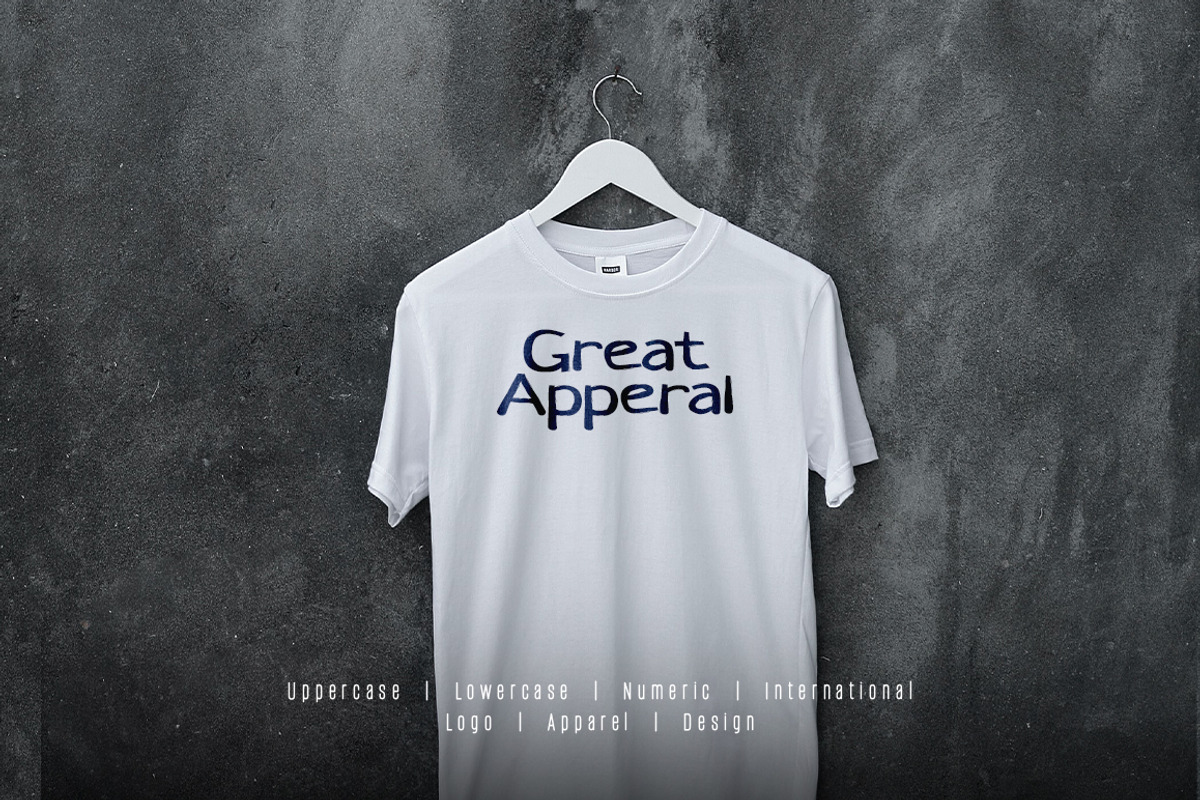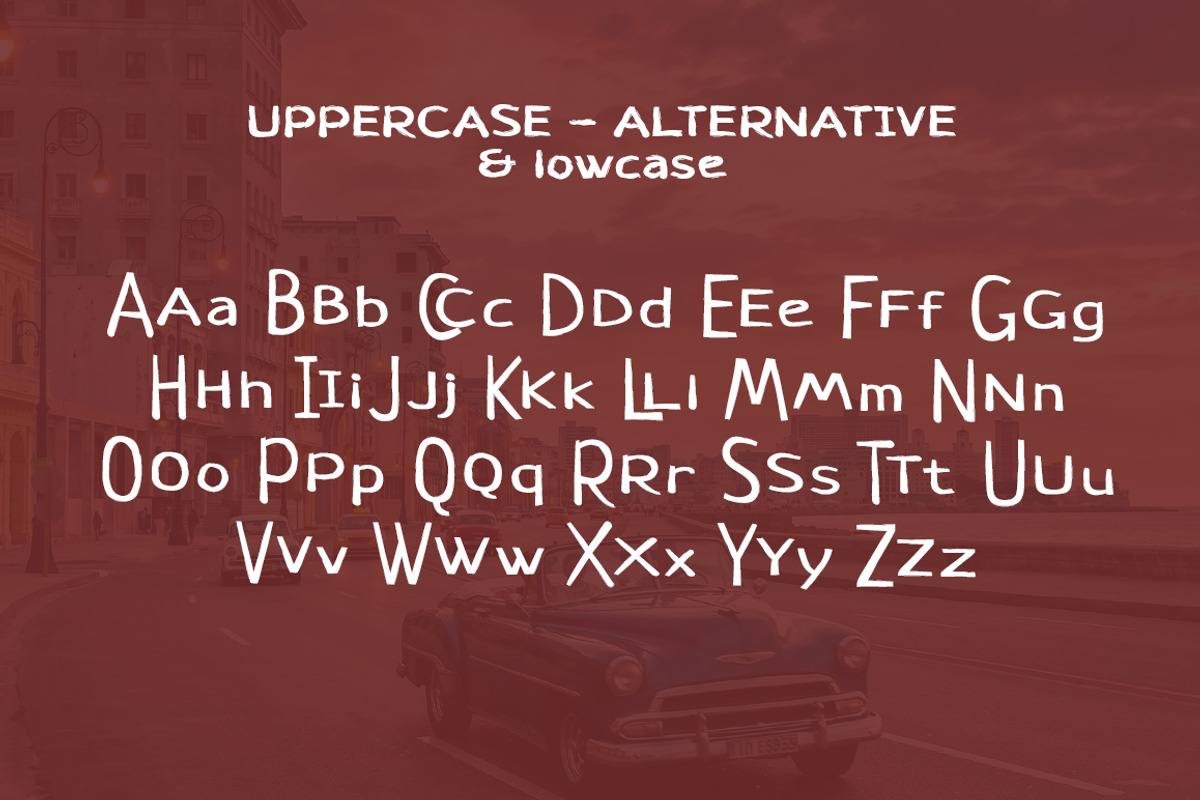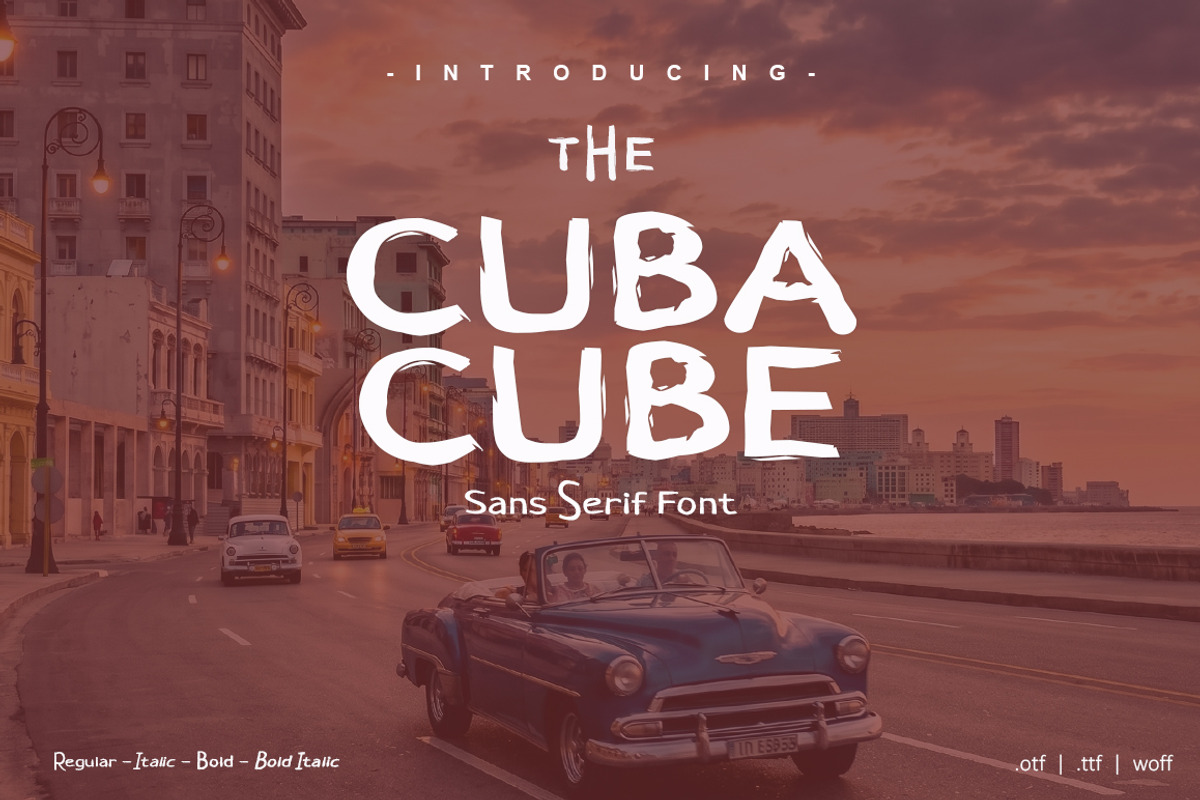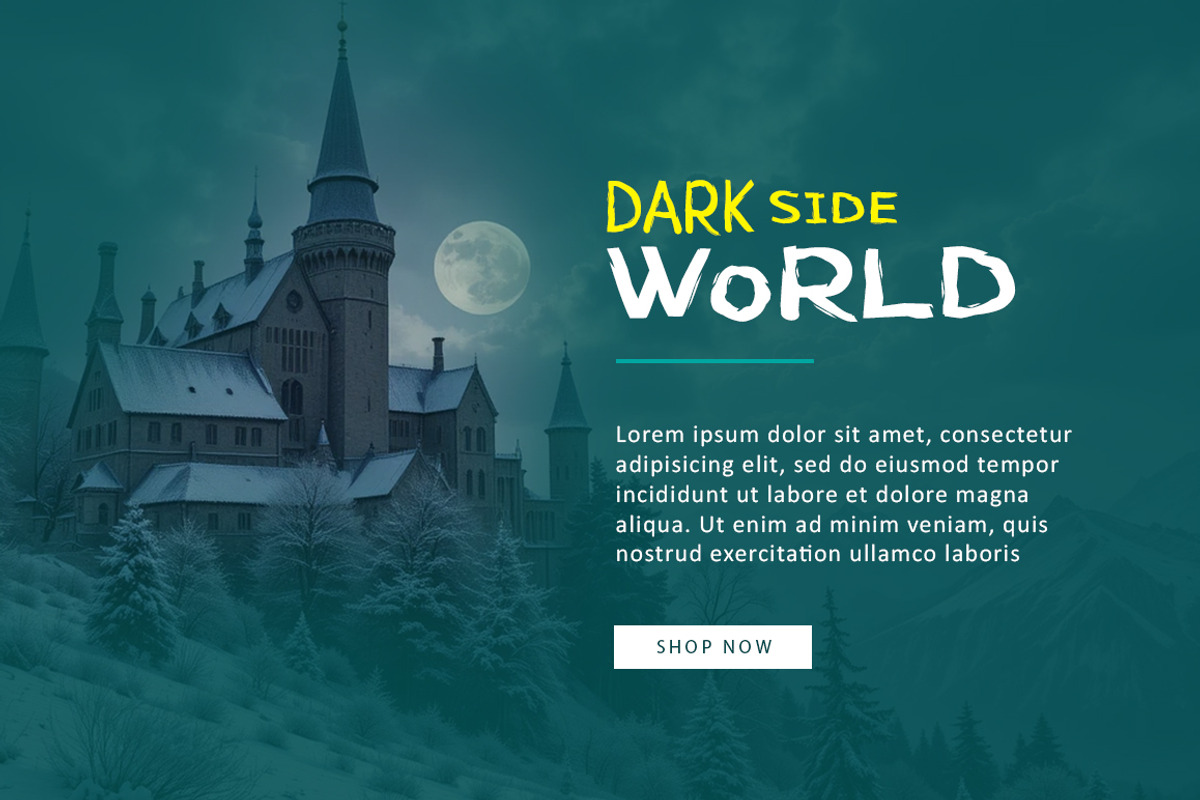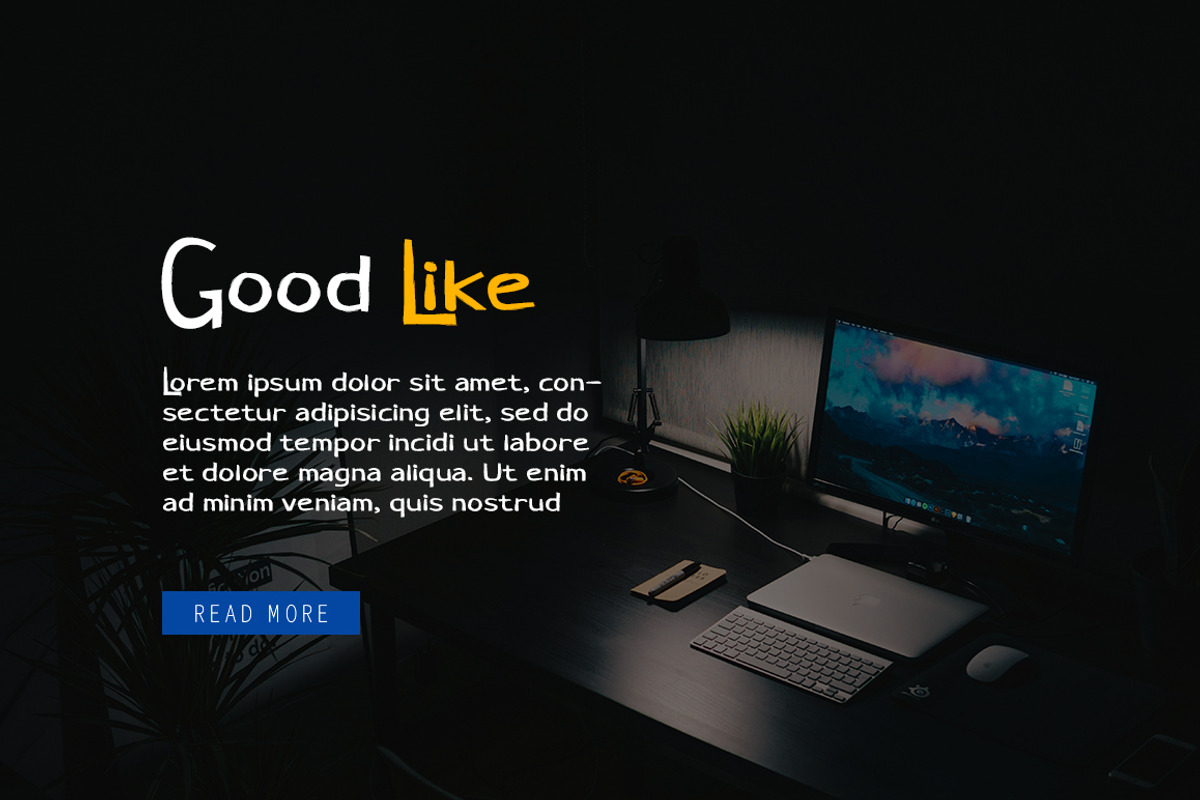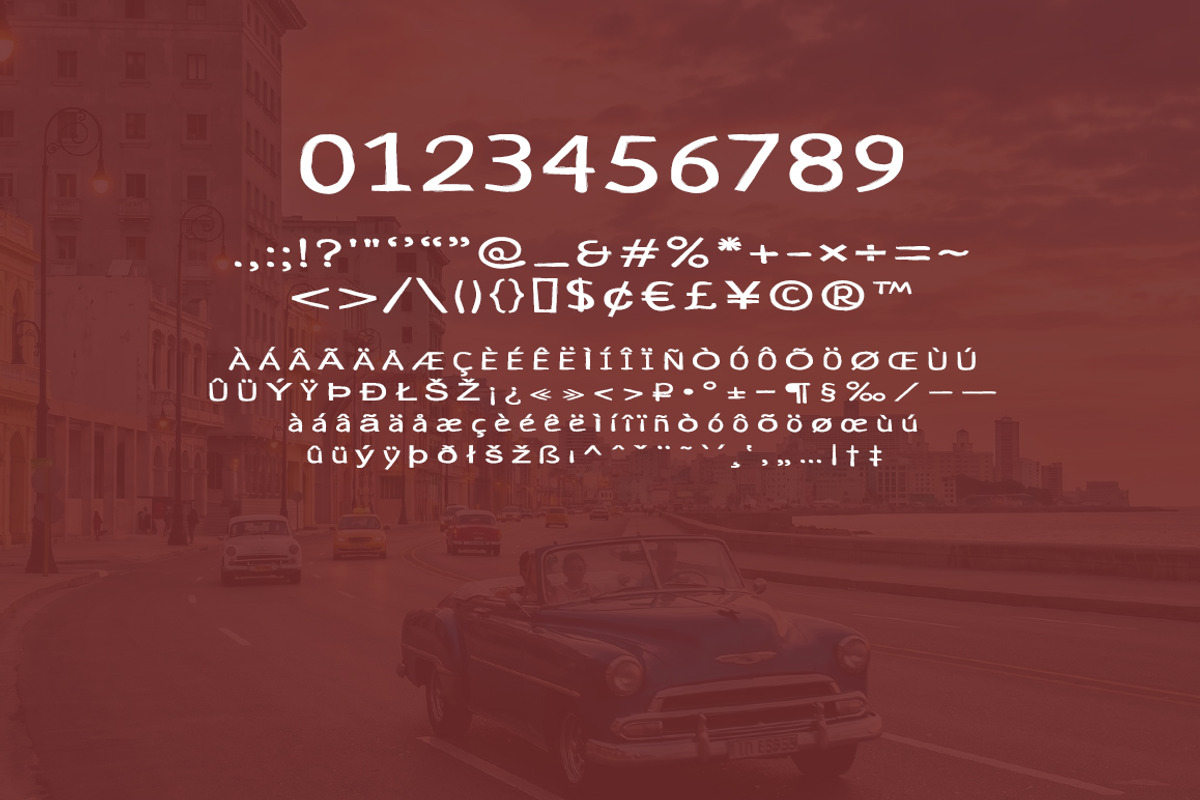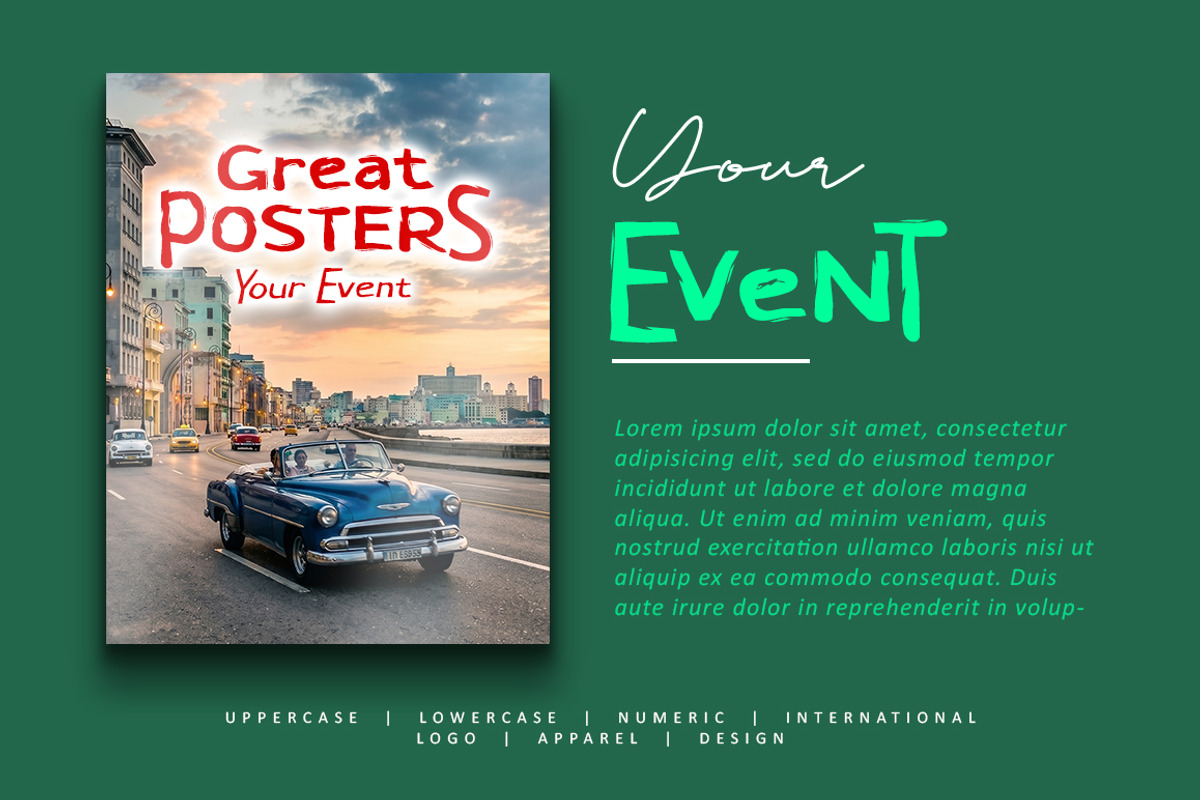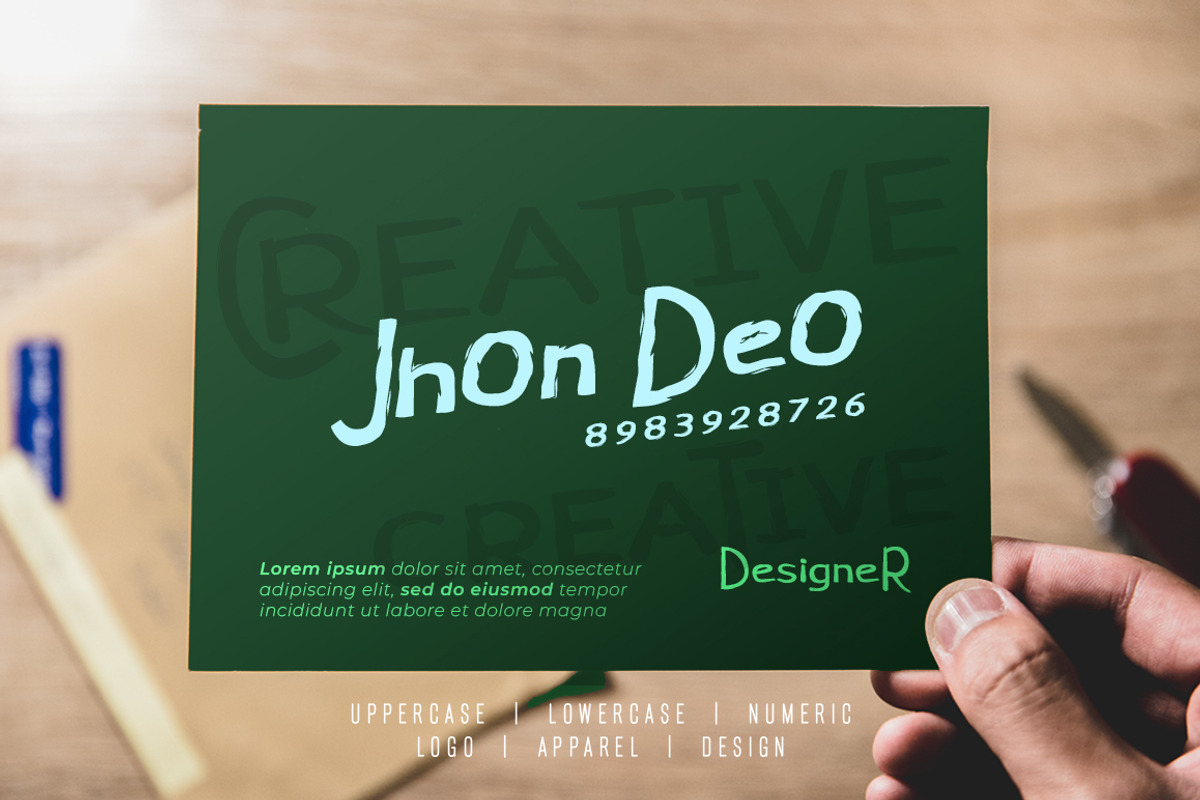
Cuba Cube Font
Cuba Cube Font very suitable for poster, for logo, music cover, clothing, and many many cool design projects. Cuba Cube Font is includes uppercase, lowercase, numerals, and punctuation - perfect for playful headlines. Regular, Italic, Bold, Bold Italic and Alternate Font